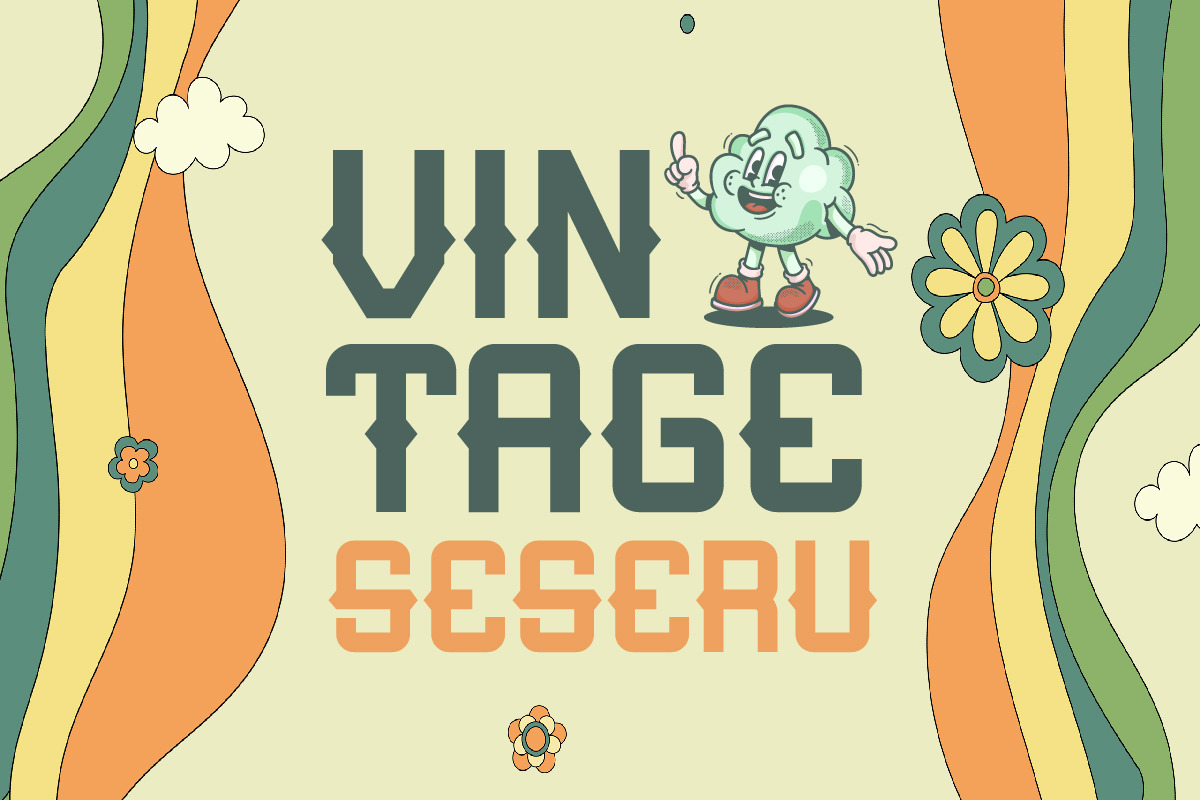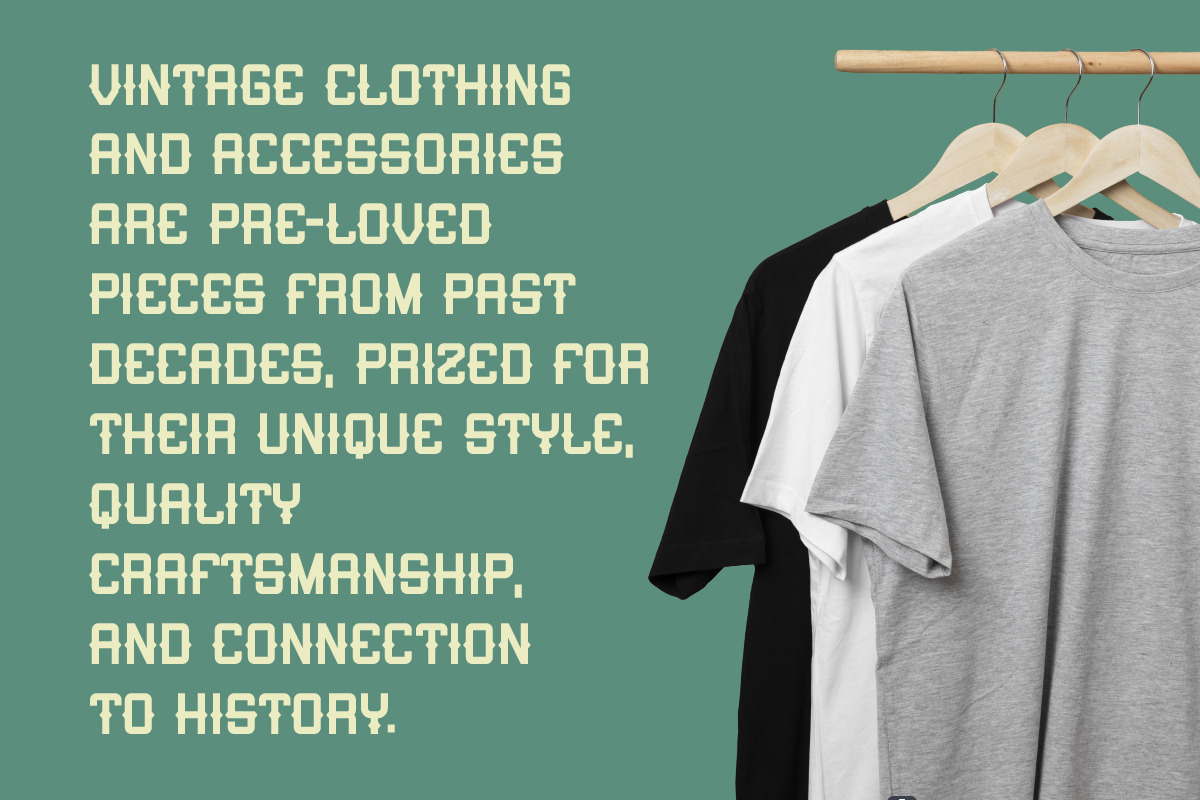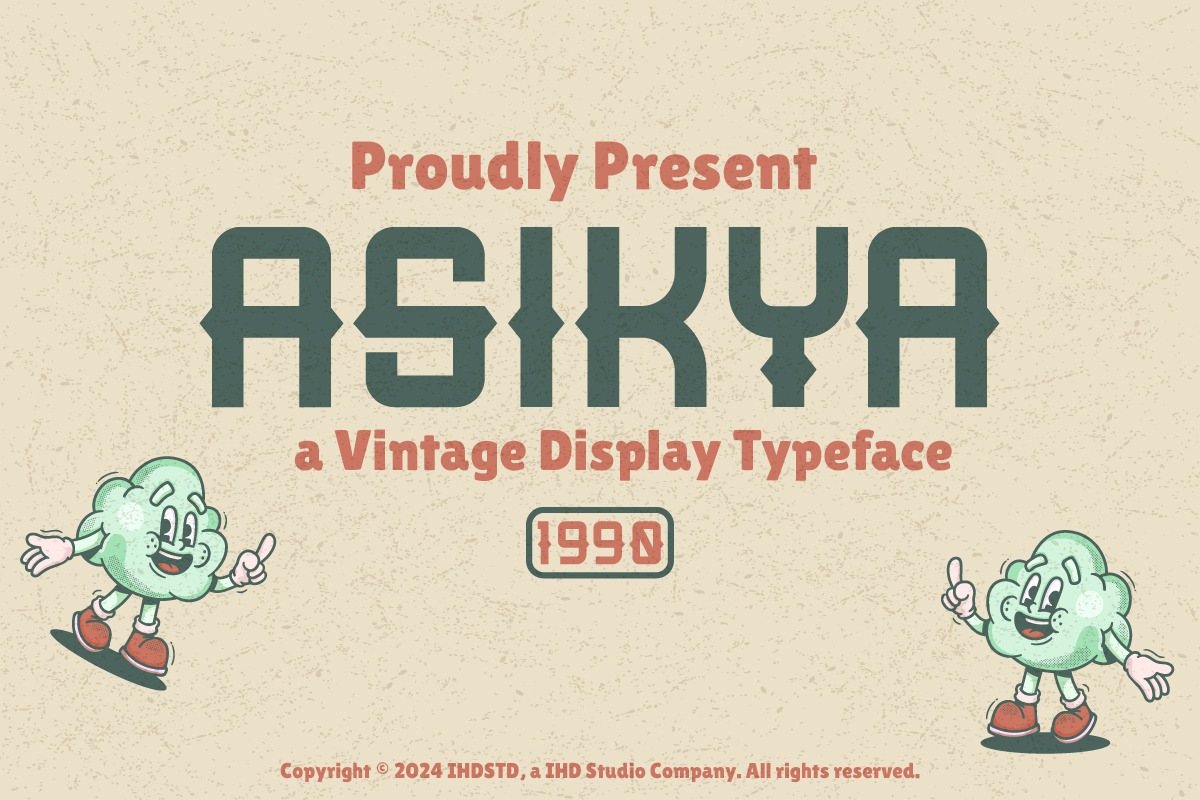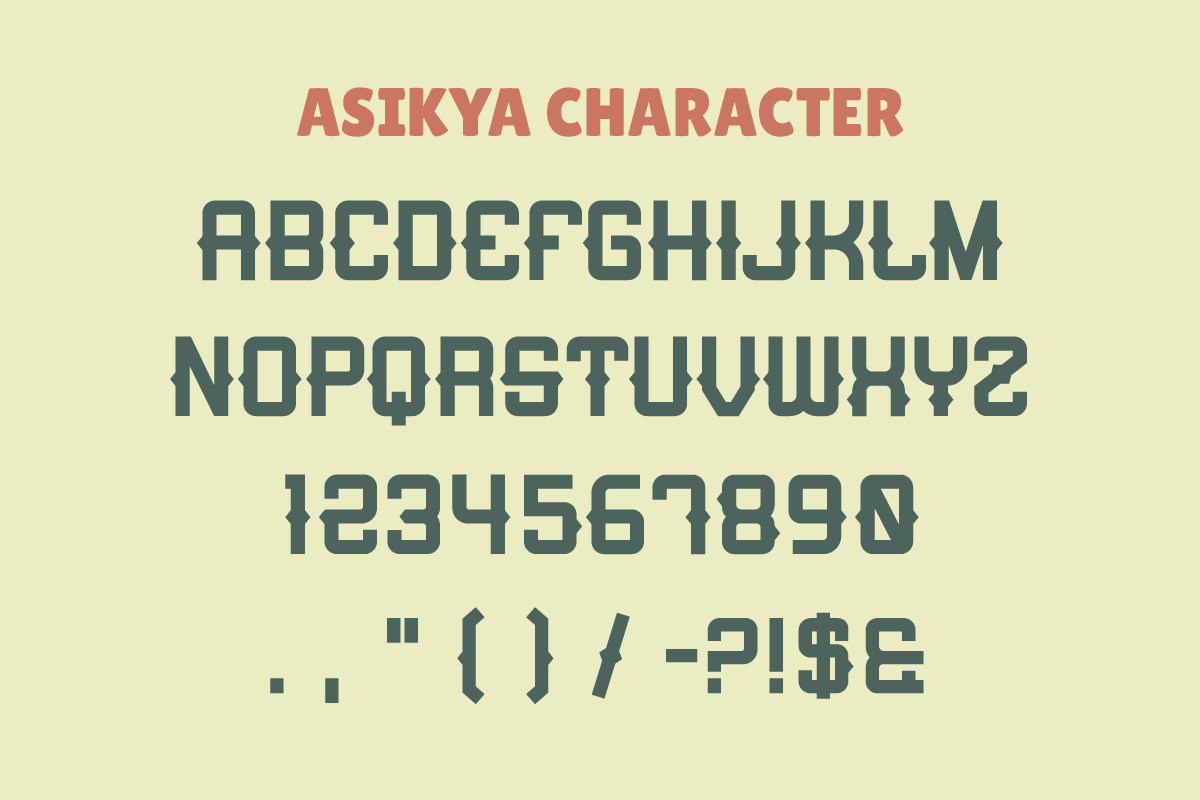
Asikya Vintage Display Typeface
Asikya Vintage Display Typeface Font is our new item suitable for your Posters.
Great for Logo, Poster, Sticker, Jerseys, Invitation Card, Brochure, etc.